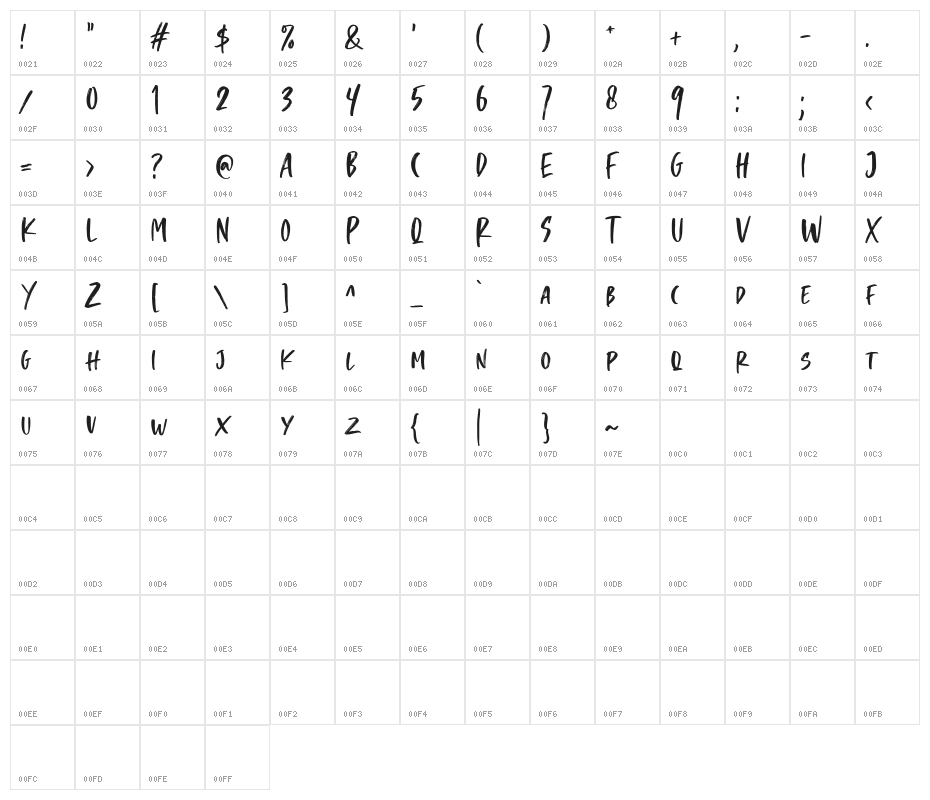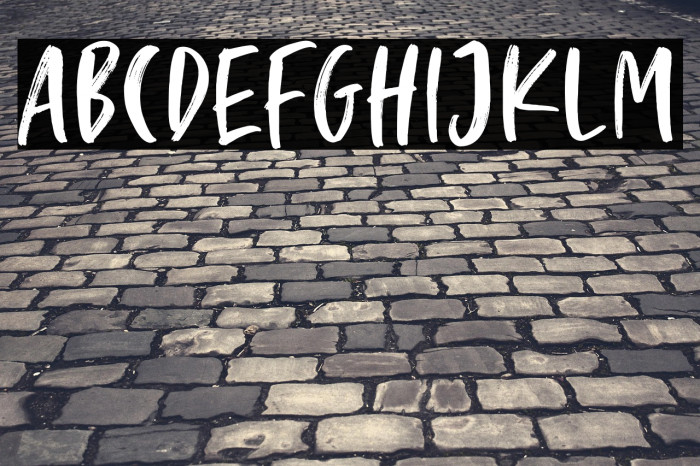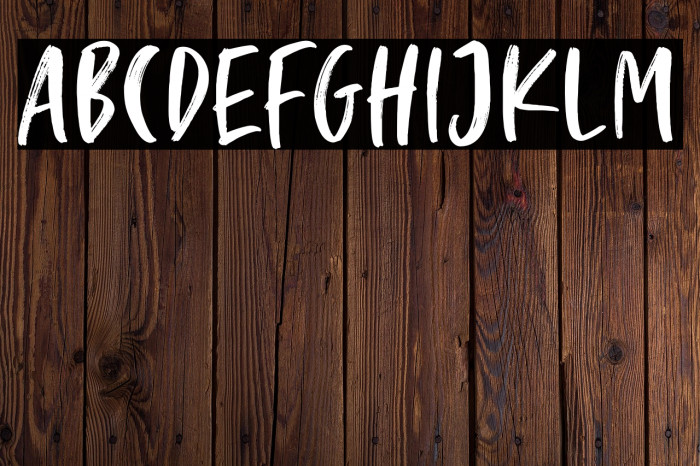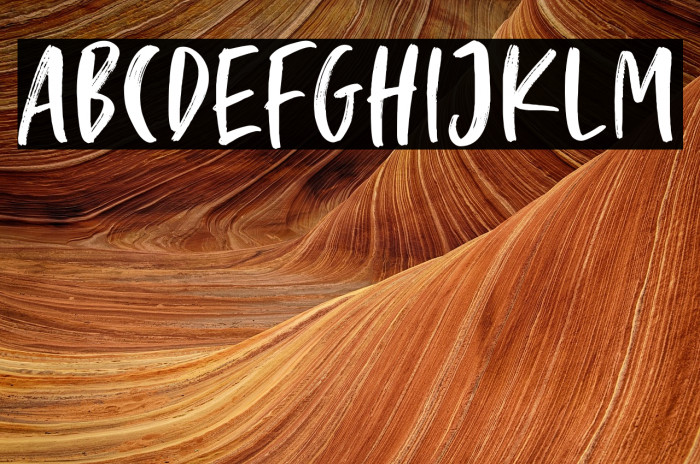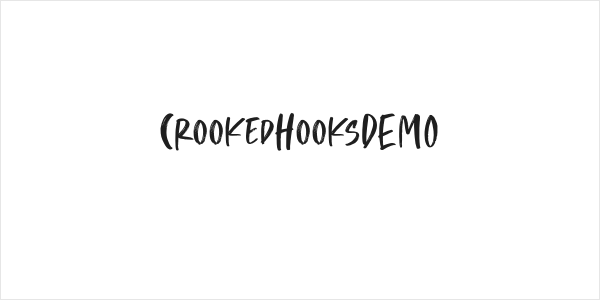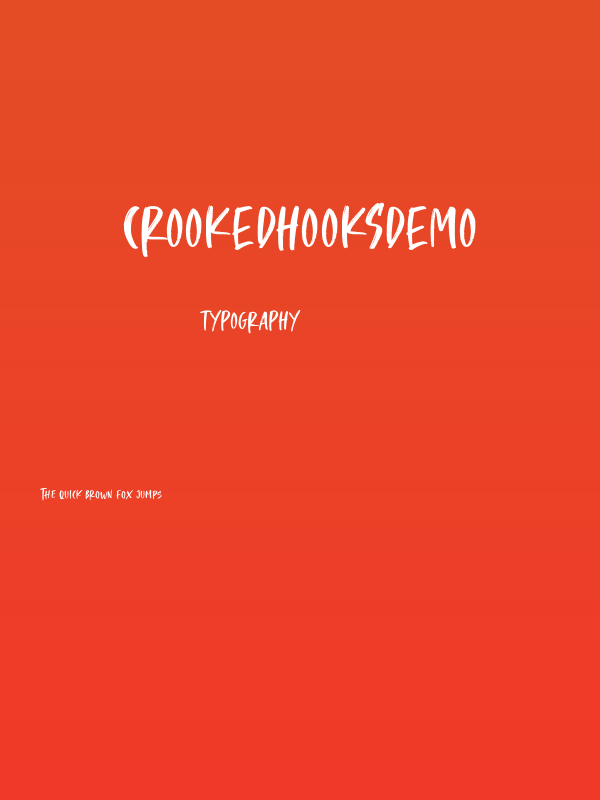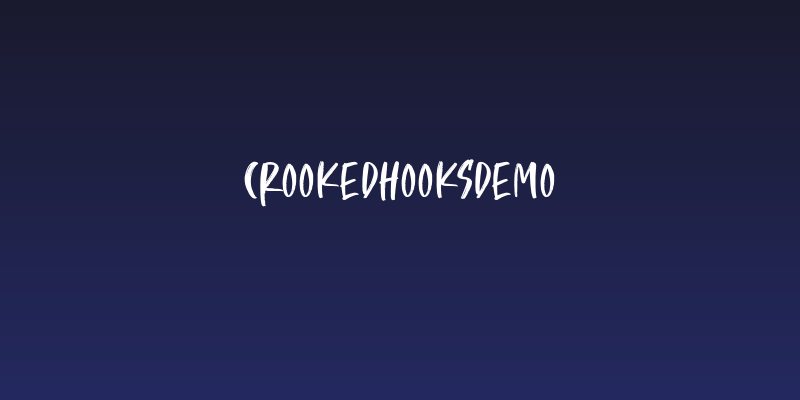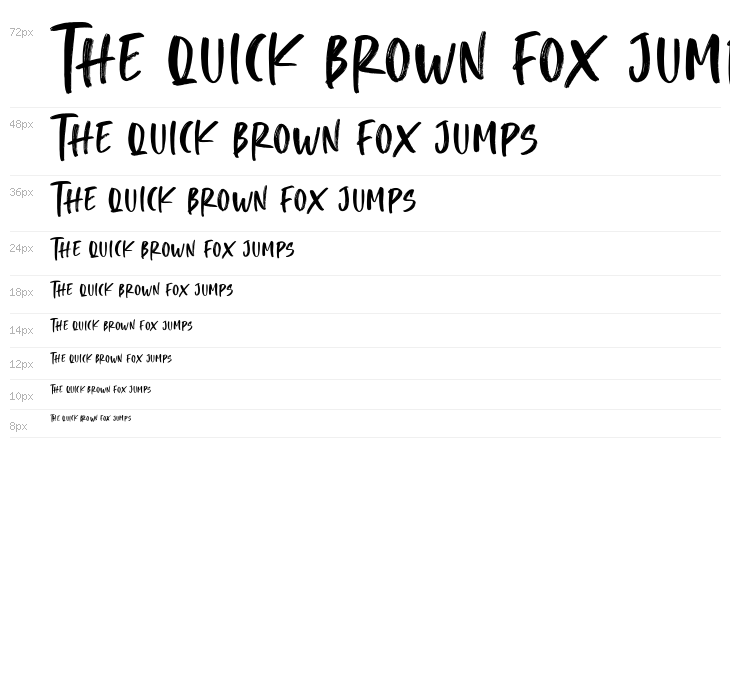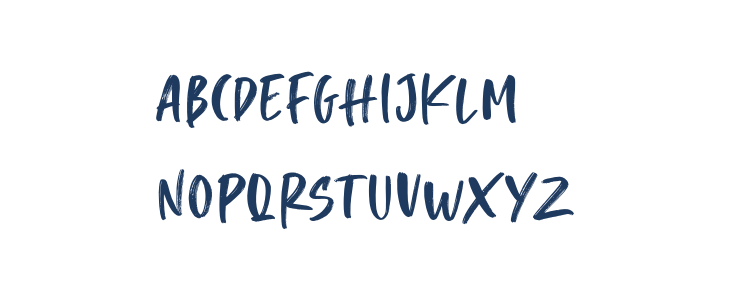
CrookedHooksDEMO Font
CrookedHooksDEMO Description
This font exhibits a bold, energetic style with a hand-drawn appearance. The characters are slightly irregular, giving it a dynamic and informal feel. The strokes are thick and uneven, adding to its casual and playful nature. The uppercase and lowercase letters maintain a consistent style, with a slight slant that enhances the font's lively character. The numbers and special characters are equally expressive, making this font suitable for creative and eye-catching designs.
| Proposed Projects | Ideal for posters, social media graphics, branding projects, and any design requiring a playful and dynamic touch. |